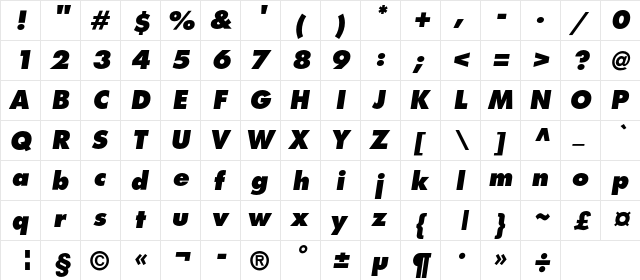
FavoritExtraBold Italic Font Preview
Design Context for FavoritExtraBold Typeface
FavoritExtraBold takes a measured approach to typography — its balanced proportions and neutral character make it a reliable workhorse for both digital and print work. Its italic angle brings a sense of urgency and motion to the letterforms. The heavy weight commands attention and anchors typographic hierarchies.
Pro Tip: Try FavoritExtraBold for annotation and caption copy alongside an upright companion — the contrast in angle creates a dynamic but ordered typographic system.